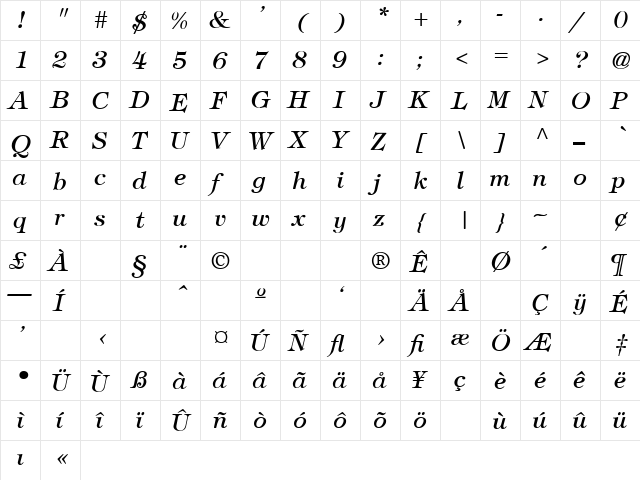
Tiffany Italic Regular
Design Context for Tiffany Italic Typeface
Tiffany Italic is a composed and adaptable typeface that performs quietly and consistently across a wide range of design contexts. The dynamic lean of this cut emphasises speed and emphasis in any layout.
Pro Tip: Try Tiffany Italic for annotation and caption copy alongside an upright companion — the contrast in angle creates a dynamic but ordered typographic system.